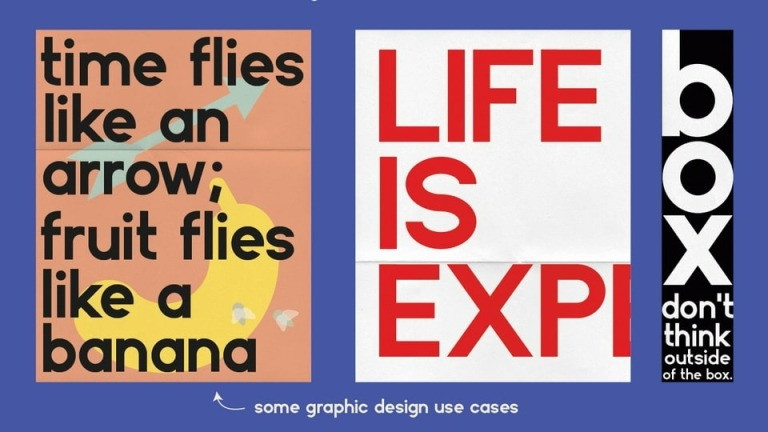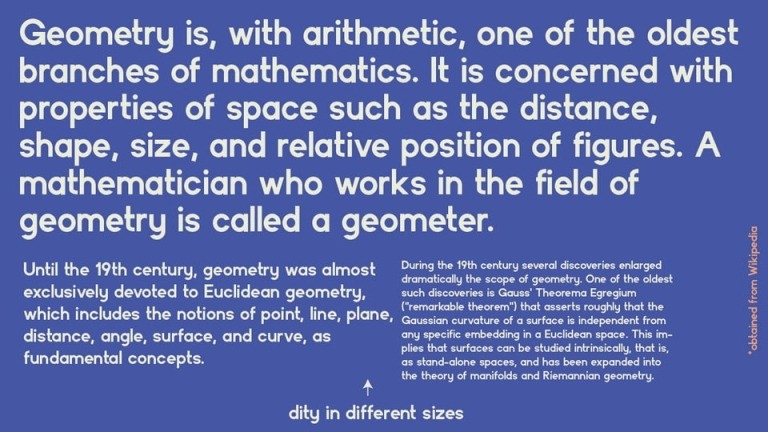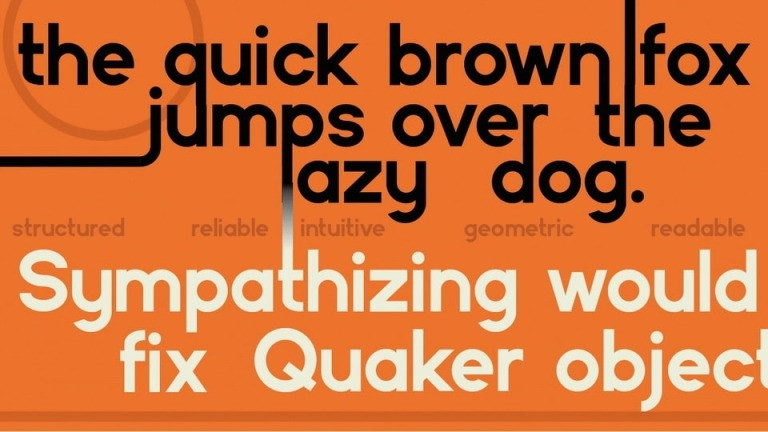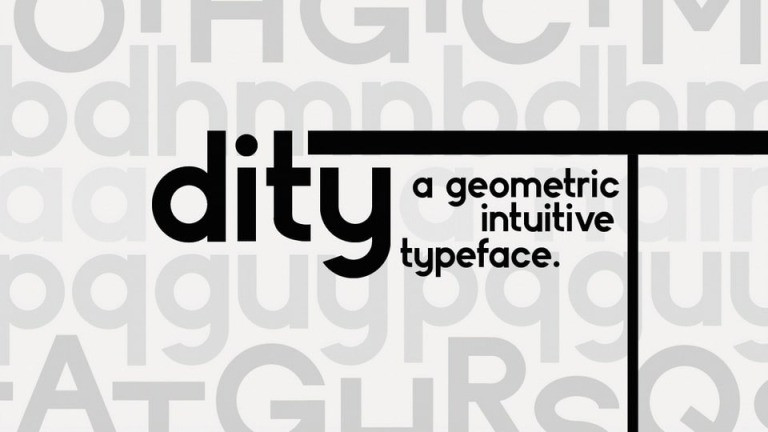
Dity Sans Serif Font is a vintage grotesque typeface inspired by 19th century type design. Made from font designer named Aaditya Nair. Dity is a geometric intuitive font with a humanist touch that creates a modern and clean appearance based on a classic vibe. Dity is perfect for short text settings, brands, headlines or signage systems.